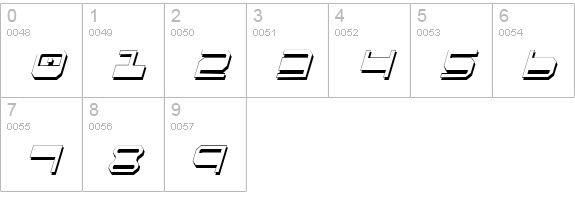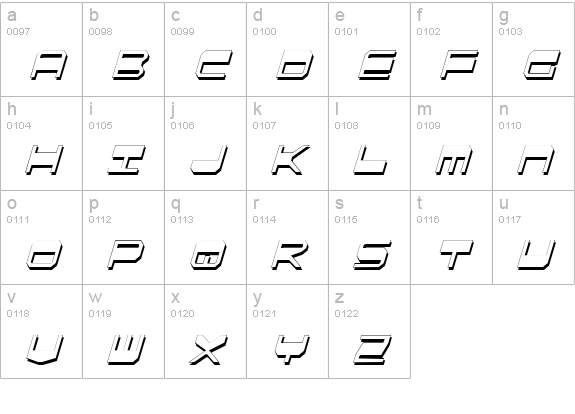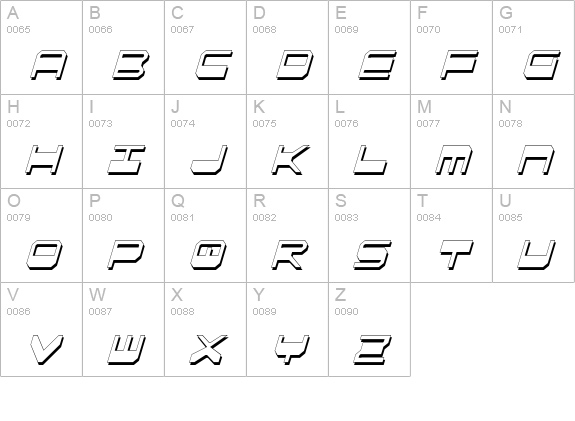
Introducing the QuickGear Shadow ItalCon font, a truly remarkable typeface that seamlessly blends elegance with a touch of mystery. This font exudes an irresistible charm, making it a perfect choice for all your creative endeavors. With its intricate shadows and striking italics, QuickGear Shadow ItalCon captivates the eye and adds a sophisticated edge to any design. This font's versatility knows no bounds, as it effortlessly adapts to various projects such as branding, logos, posters, invitations, and much more. Its unique design elements create a sense of depth and intrigue, making each letter come alive on the page. QuickGear Shadow ItalCon is the ideal choice for those seeking to make a lasting impression. One of the most appealing aspects of QuickGear Shadow ItalCon is that it is available free of charge. Yes, you read that right! This font can be freely downloaded from FontsMarket.com, allowing you to access its extraordinary features without any cost. It's an opportunity you simply can't miss! Whether you're a professional designer or a creative enthusiast, QuickGear Shadow ItalCon will undoubtedly elevate your projects to new heights. Its seamless integration with various design software ensures a smooth and hassle-free experience, enabling you to unleash your creativity without any constraints. Don't let this chance slip away! Download QuickGear Shadow ItalCon today from FontsMarket.com and unlock a world of endless possibilities. Let this font become your secret weapon in creating stunning visuals that leave a lasting impression. Embrace the power of QuickGear Shadow ItalCon and embark on a design journey like never before.